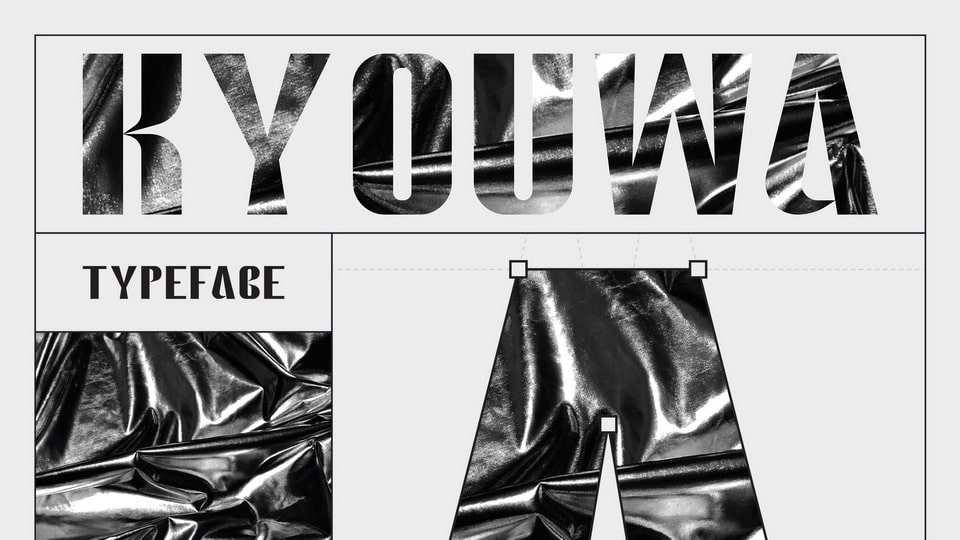
Download Kyouwa font, a modern typeface that combines high contrast with bold elegance for a truly impactful design statement. Kyouwa font is the ideal choice for projects that demand attention while maintaining a touch of contemporary grace.
Designer: デズハン Dezuhan